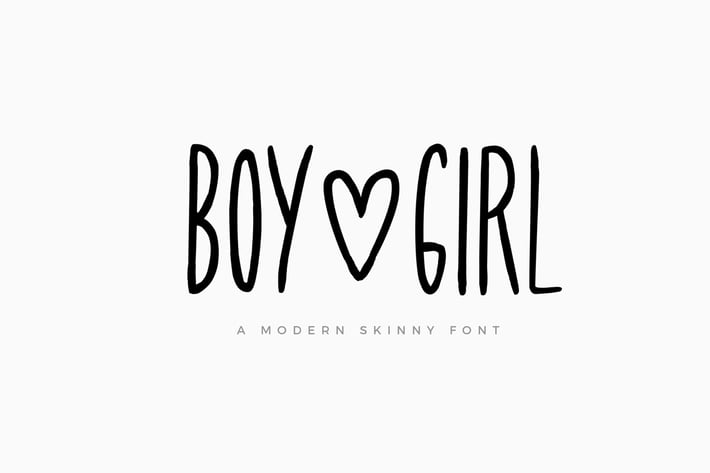
Boy and Girl Skinny Font and Extras
pixelcolours
An imperfect modern skinny font full of love with extra clipart to make your designs more fun! Great for quotes, logos, titles, recipes, social media posts, etc.